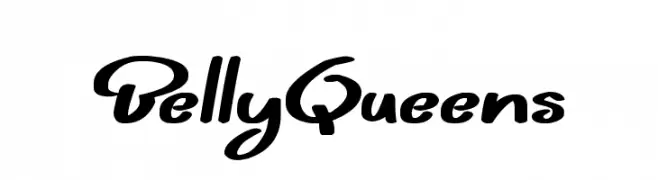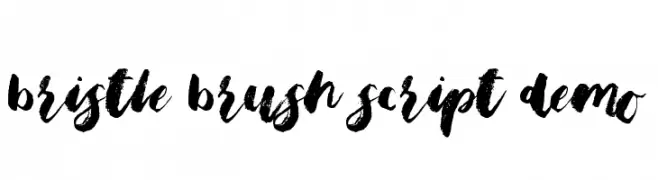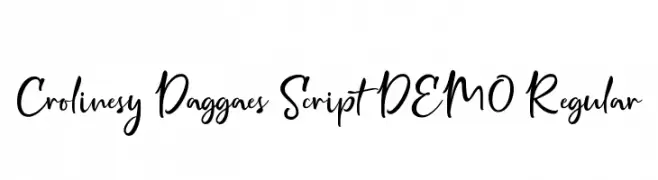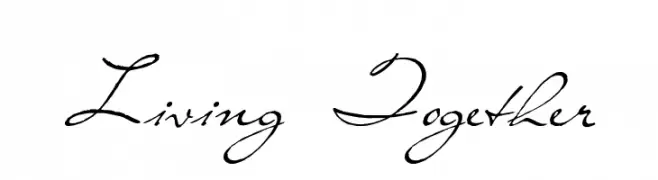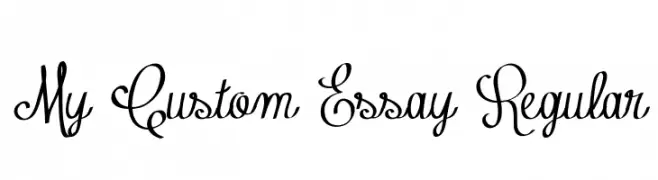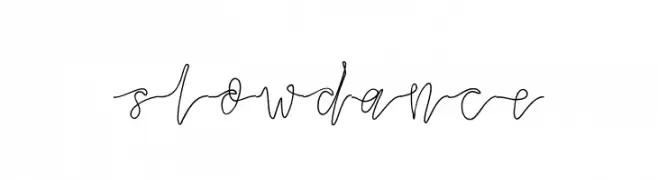
( Fonts by Out Of Step Font Company )
A bold, brush-stroke script font with a textured, hand-painted style.
( Alit Design - Alit Suarnegara - www.alitdesign.net )
A lively and fluid script font with interconnected cursive strokes.
( Cotbada Studio - Isfani - creativemarket.com/Cotbada_studio )
A lively and flowing script font with expressive curves and elegant loops.
( Cynesthetic - Christine )
A graceful and flowing script font with elegant cursive strokes.
( Darrell Flood )
A bold, playful font with rounded, bubbly characters and a retro vibe.
( Debut Studio - Ari Fadli - creativemarket.com/debutstudio )
A dynamic brush-style font with scratchy, textured strokes for an artistic look.
( Intellecta Design - Paulo W - new.myfonts.com/foundry/Intellecta_Design/?refby=paulow )
An elegant script font with flowing, interconnected letters and graceful loops.
( Jonathan S. Harris - www.tattoowoo.com )
A bold and expressive script font with fluid, dynamic strokes.